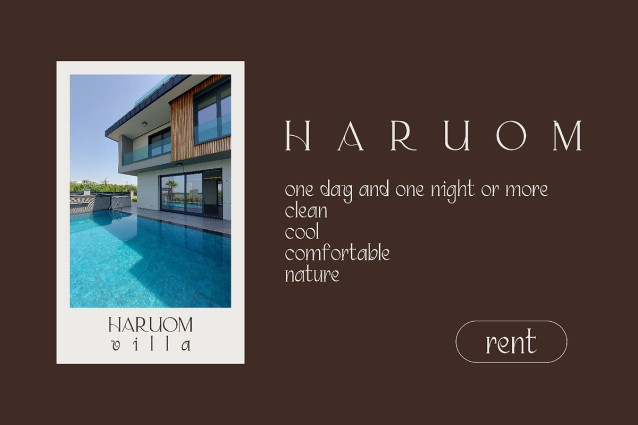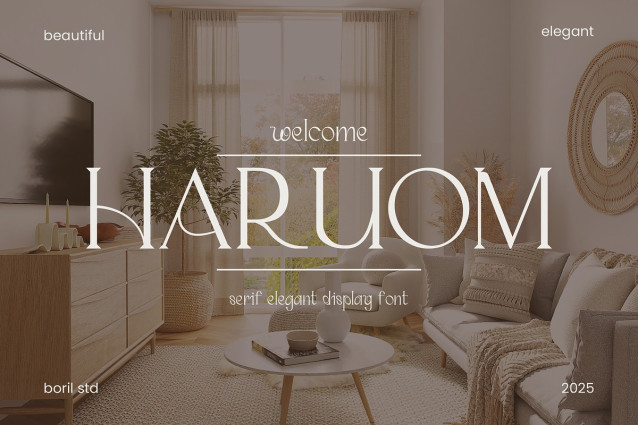
Haruom Font
Haruom Font features an experimental serif style with elegant yet unique typographic characteristics. The characters are thin, tall, and filled with artistic elementssuch as swashes, curved serifs, and contrasting geometric and organic shapes, creating a blend of classic and contemporary.